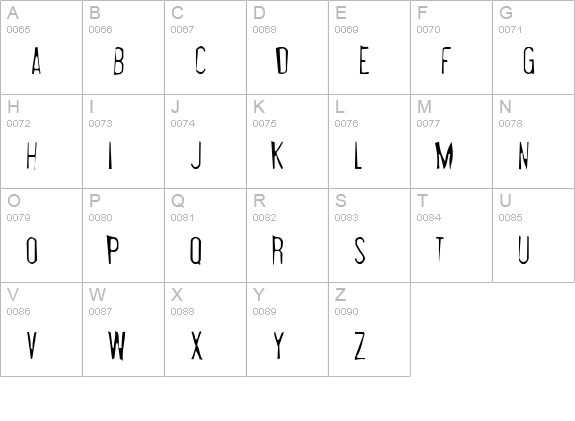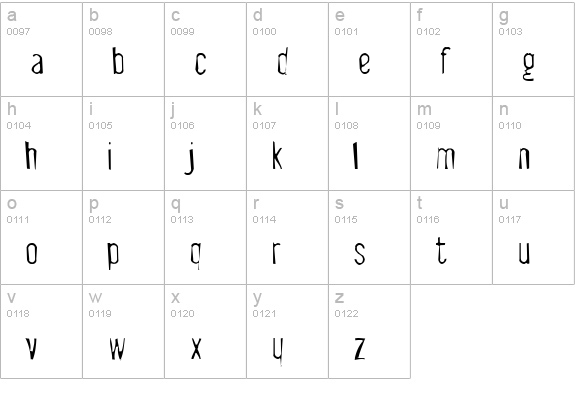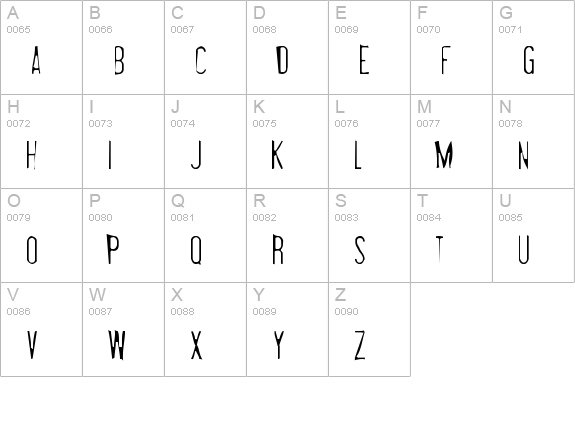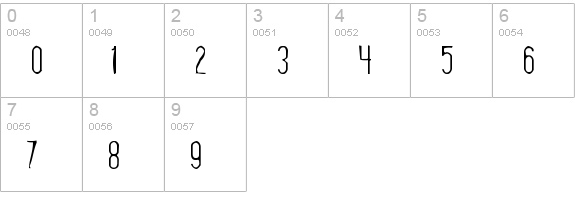
Libel Suit Gaunt Font Details
Libel Suit Gaunt font is a stylish and elegant typeface that exudes sophistication and charm. Its sleek lines and intricate details make it perfect for adding a touch of class to any design project. The slender and refined letterforms of Libel Suit Gaunt font give off a sense of modernity and grace, making it a versatile choice for various applications. What sets Libel Suit Gaunt font apart is its unique combination of traditional elegance and contemporary flair. This font is ideal for creating eye-catching headlines, branding materials, invitations, and much more. Its versatility allows it to be used in both formal and casual settings, making it a must-have for any designer's toolkit. The best part about Libel Suit Gaunt font is that it is completely free to download at FontsMarket.com. So, whether you're a seasoned designer looking to add a fresh new font to your collection or a beginner searching for the perfect typeface to elevate your projects, Libel Suit Gaunt font is the ideal choice. Download it today and let your creativity soar with this stunning and freely available font.